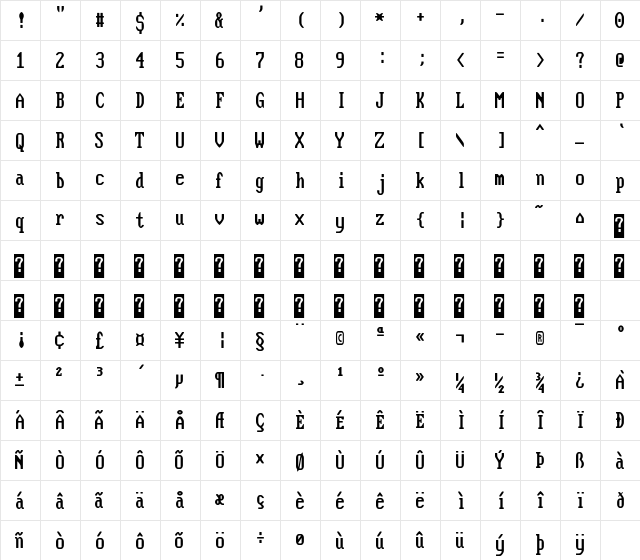
Flexi IBM VGA True Regular
| Foundry | VileR |
| Designer | VileR |
Design Context for Flexi IBM VGA True Typeface
Flexi IBM VGA True takes a measured approach to typography — its balanced proportions and neutral character make it a reliable workhorse for both digital and print work.